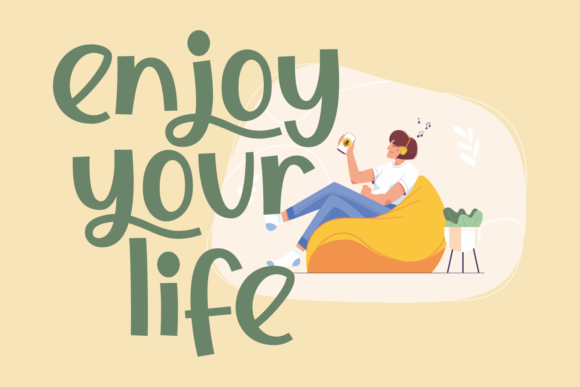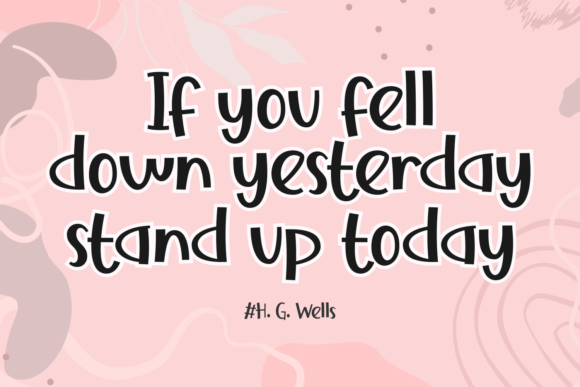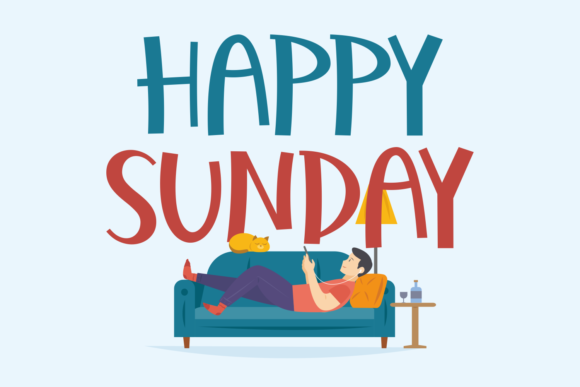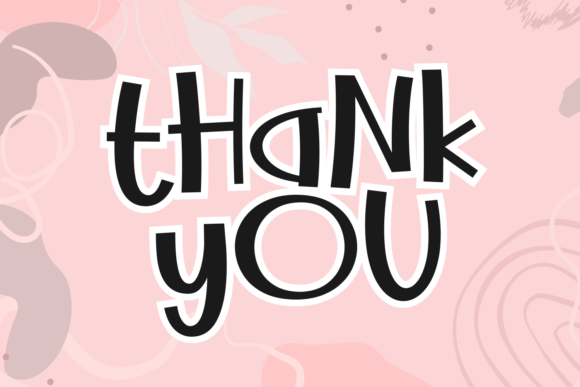
Introduction to Meilya Font
Have you ever stared at a blank page, trying to come up with the perfect design for your creative project? We’ve all been there – searching for that one element that will bring our ideas to life. For designers, the search for the perfect font can be a daunting task. But what if I told you that you’ve just found your new go-to companion for all your creative endeavors?
Enter the Meilya Font, a fun and modern handwritten font that’s about to revolutionize your design game. With its playful characters, this high-quality font is perfect for storybooks, book covers, magazines, apparel designs, branding projects, social media posts, posters, and many other creations.
Whether you’re a seasoned designer or just starting out, the Meilya Font is an invaluable design resource that’s sure to elevate your projects. Plus, with its transparent background, you can easily place it over any image or background, giving you complete creative control. And the best part? It’s available for free download, making it an accessible and valuable addition to your design toolkit.
Key Features of Meilya Font
- High-quality design resource ideal for creative projects, offering a unique and elegant aesthetic.
- The font features a transparent background, allowing for seamless integration with images and other design elements.
- Meilya Font is available in multiple sizes and resolutions, making it suitable for a wide range of applications, from small text to large headlines.
- This font is particularly useful for designers working on projects that require a touch of sophistication and refinement.
- Meilya Font’s unique characteristics make it an excellent choice for designers looking to add a creative twist to their work.
Honest Review: Meilya Font
I recently stumbled upon the Meilya Font and I’m excited to share my thoughts on this free download. As a designer, I’m always on the lookout for high-quality design resources that can elevate my creative projects. The Meilya Font did not disappoint.
- ✨ Beautiful, elegant design that’s perfect for feminine-themed projects.
- ✨ Transparent background option, which makes it easy to work with.
- ⚠️ Limited character set, which may not be ideal for longer texts.
- ⚠️ Not suitable for bold, dramatic font uses.
Overall, I’m impressed with the Meilya Font. It’s a great addition to any designer’s toolkit, especially for creative projects that require a touch of elegance. While it may have some limitations, I believe it’s a solid choice for designers who are looking for a high-quality, free font download.
Meilya Font: A High-Quality Design Resource
Tips for Getting the Most Out of Meilya Font
Meilya Font is a versatile font that can be used for a variety of creative projects. To get the most out of it, experiment with different font sizes, colors, and styles to find the perfect combination for your design. You can also use the font with a transparent background to create a unique design effect.
Meilya Font is a great choice for designers working on creative projects that require a high-quality, elegant font. Some common use cases include:
When compared to Meilya Font, Great Vibes Font has a more classic and timeless feel, making it a great choice for traditional or vintage-themed designs.
Alex Brush Font is a handwritten font that’s perfect for adding a personal touch to your design projects. It’s ideal for creative projects that require a more casual and approachable tone, such as blog posts, social media graphics, and advertising materials. Alex Brush Font is a great alternative to Meilya Font when you need a more relaxed and friendly vibe.
Q: Does Meilya Font come with a transparent background?
Yes, Meilya Font is available with a transparent background, making it easy to layer over other design elements or use in combination with other design resources. This feature allows for greater flexibility and creative freedom in your design projects.